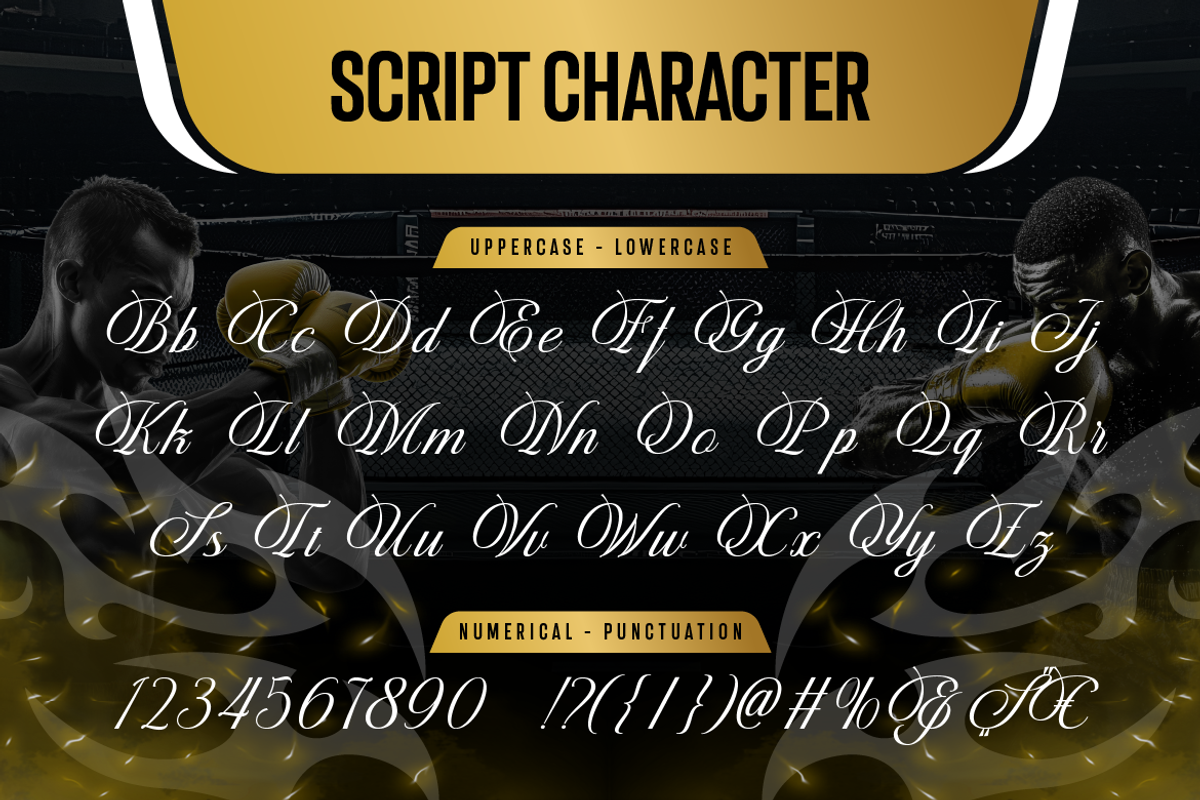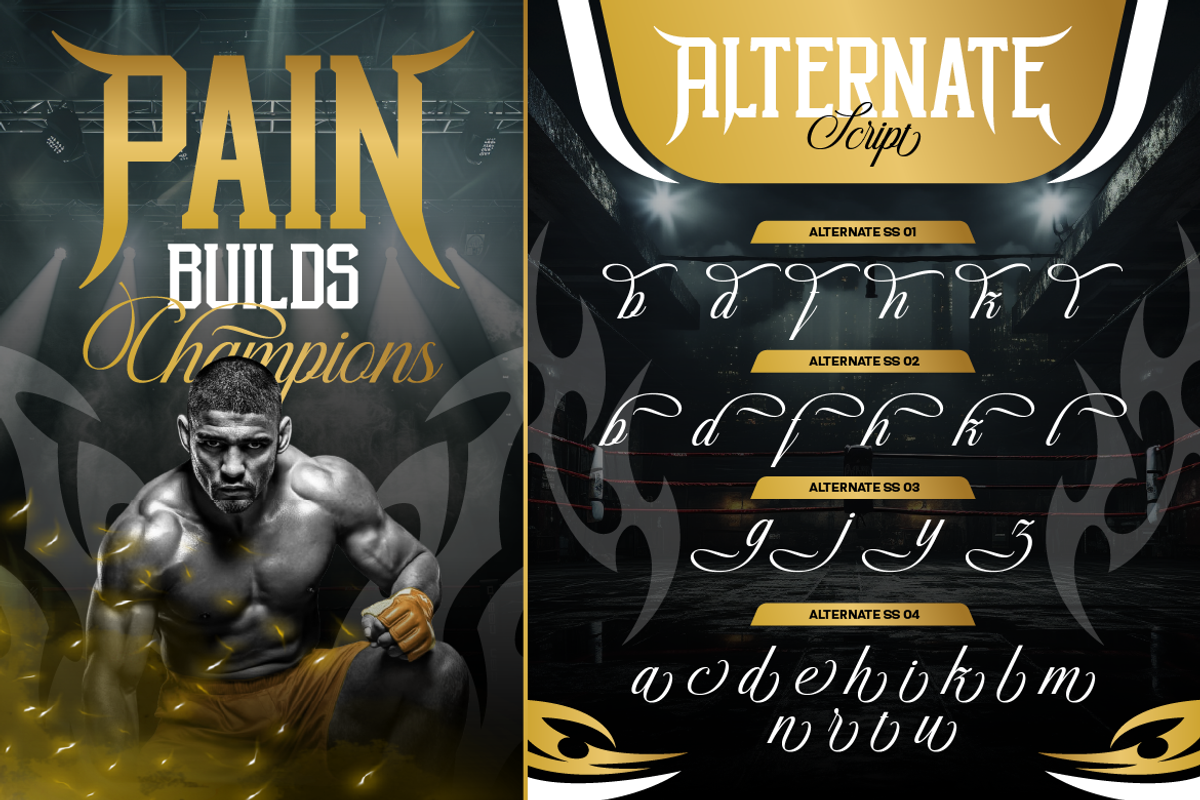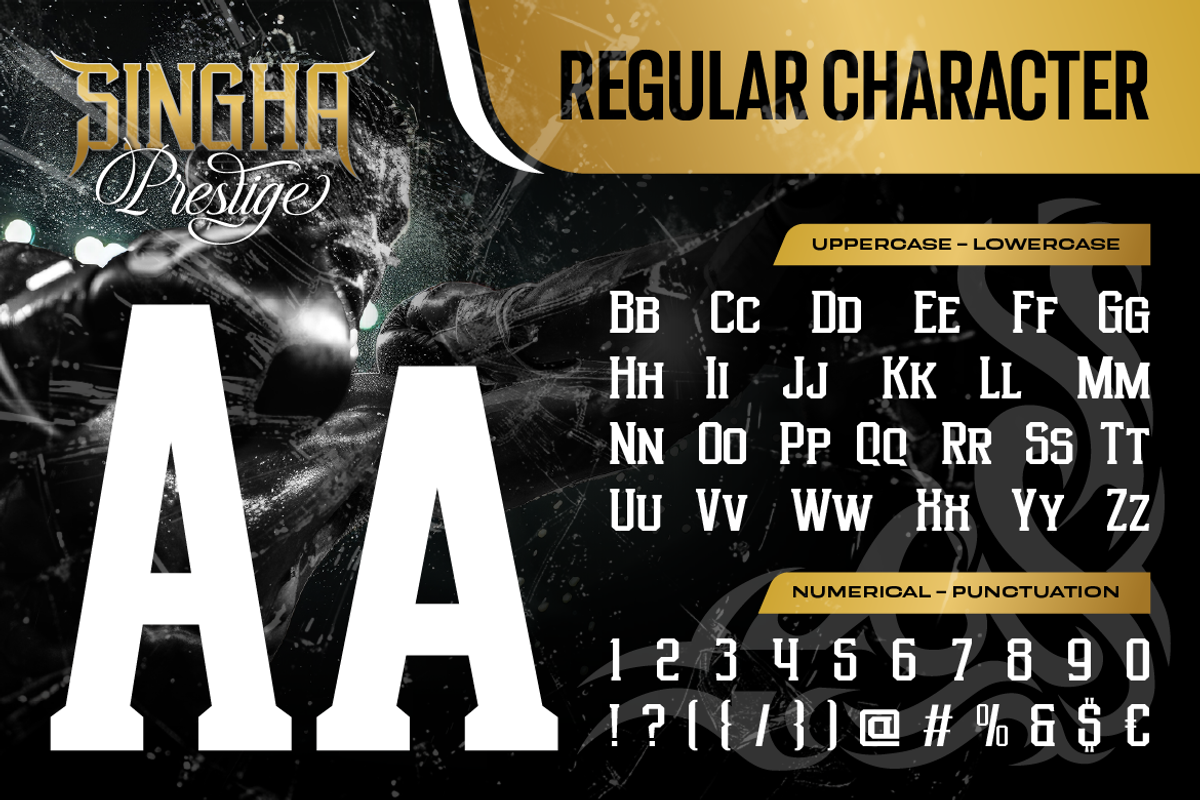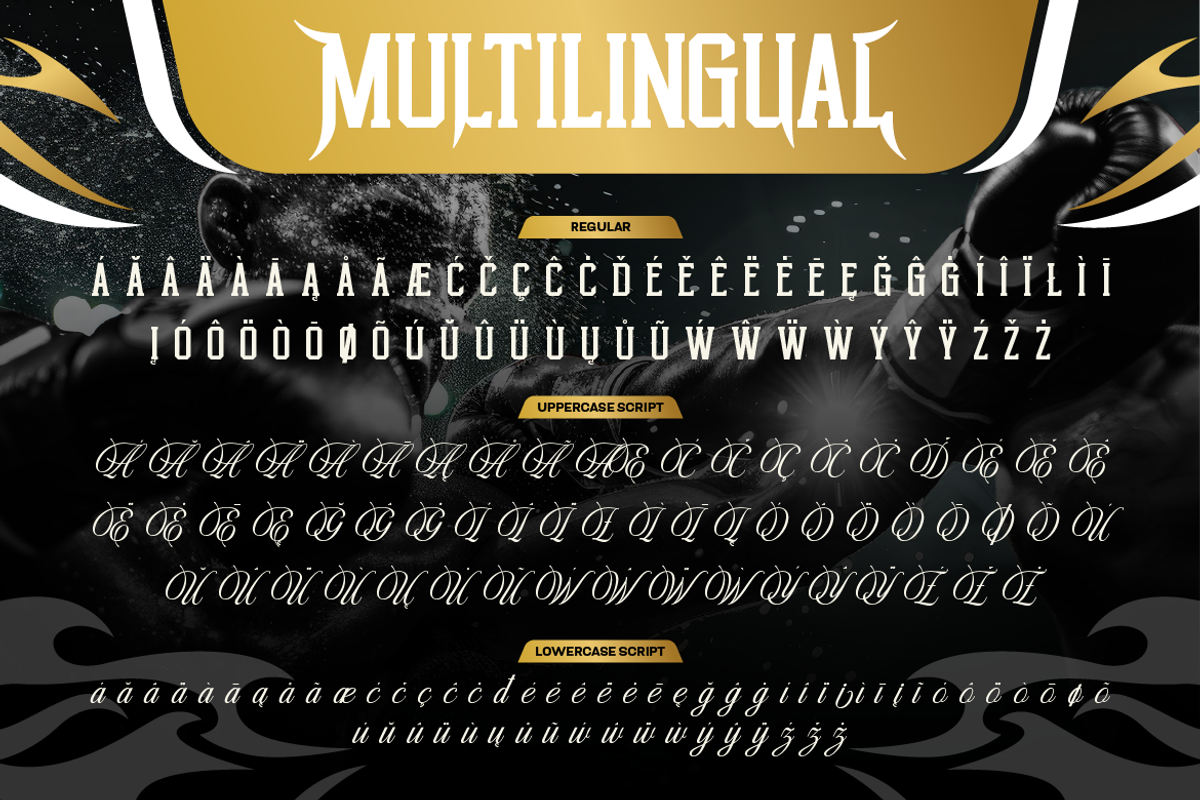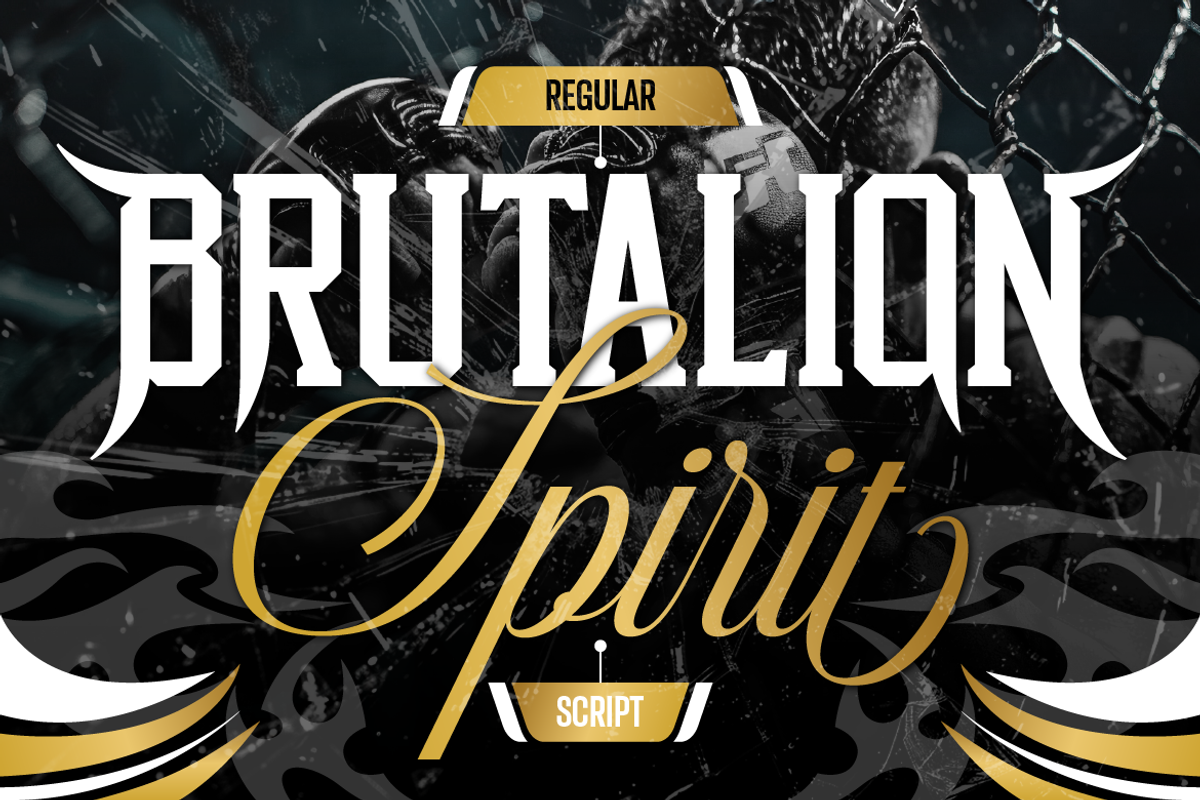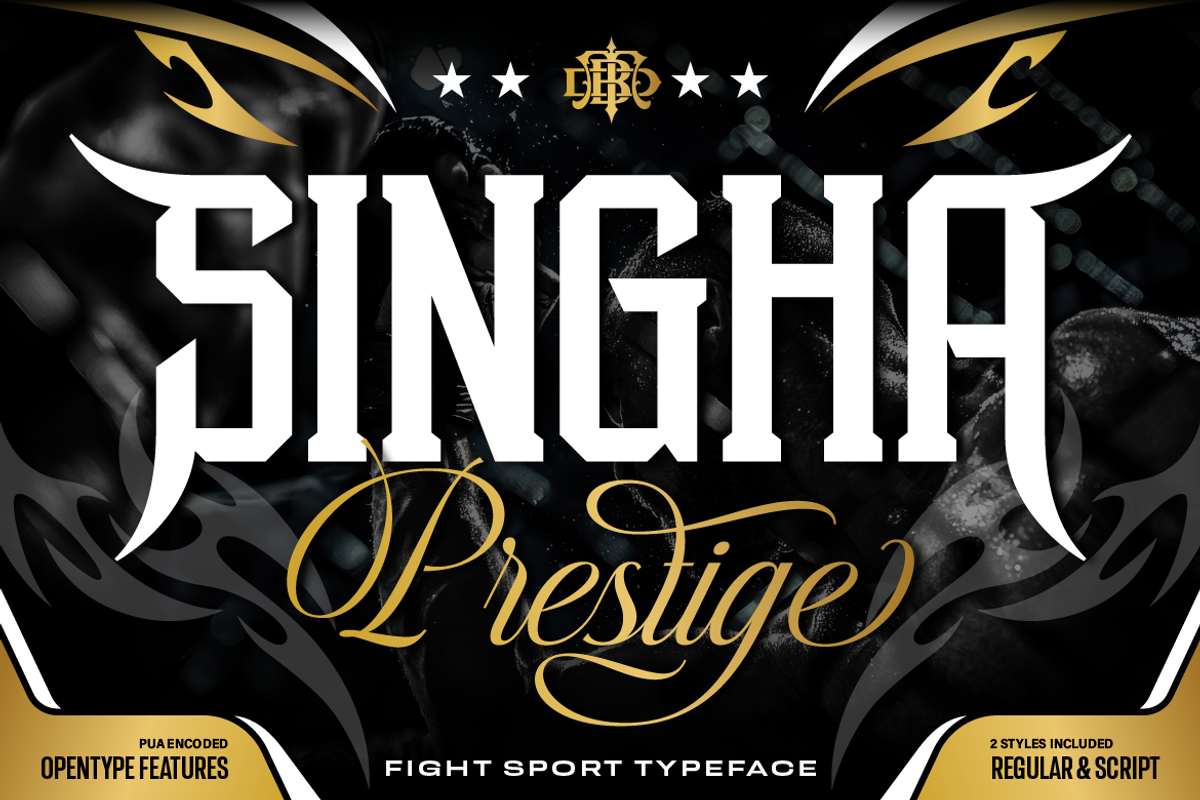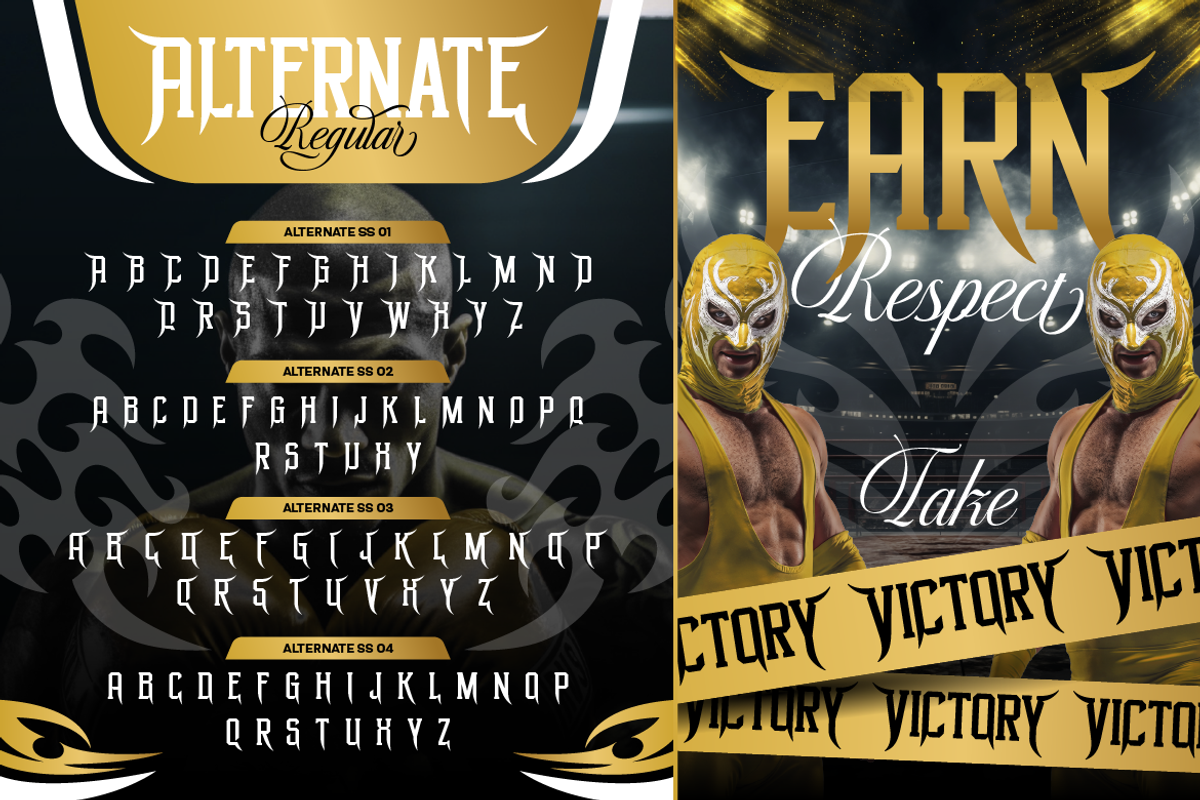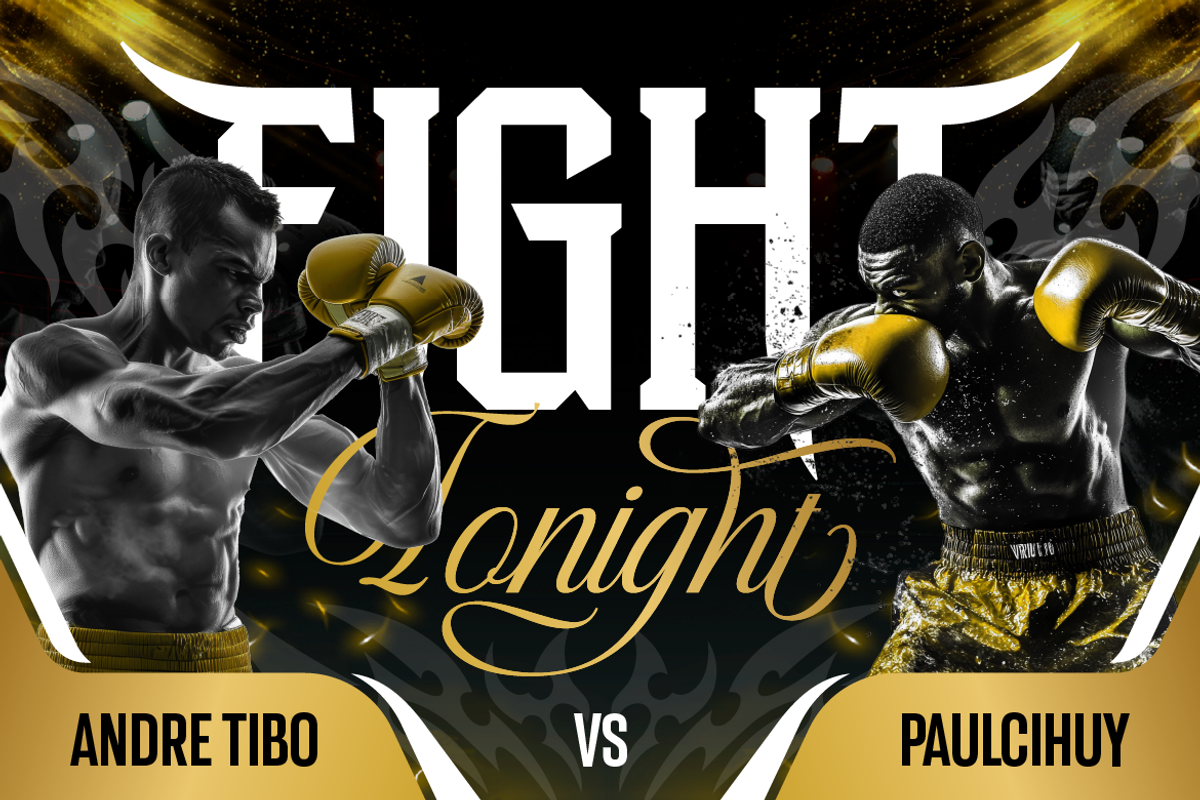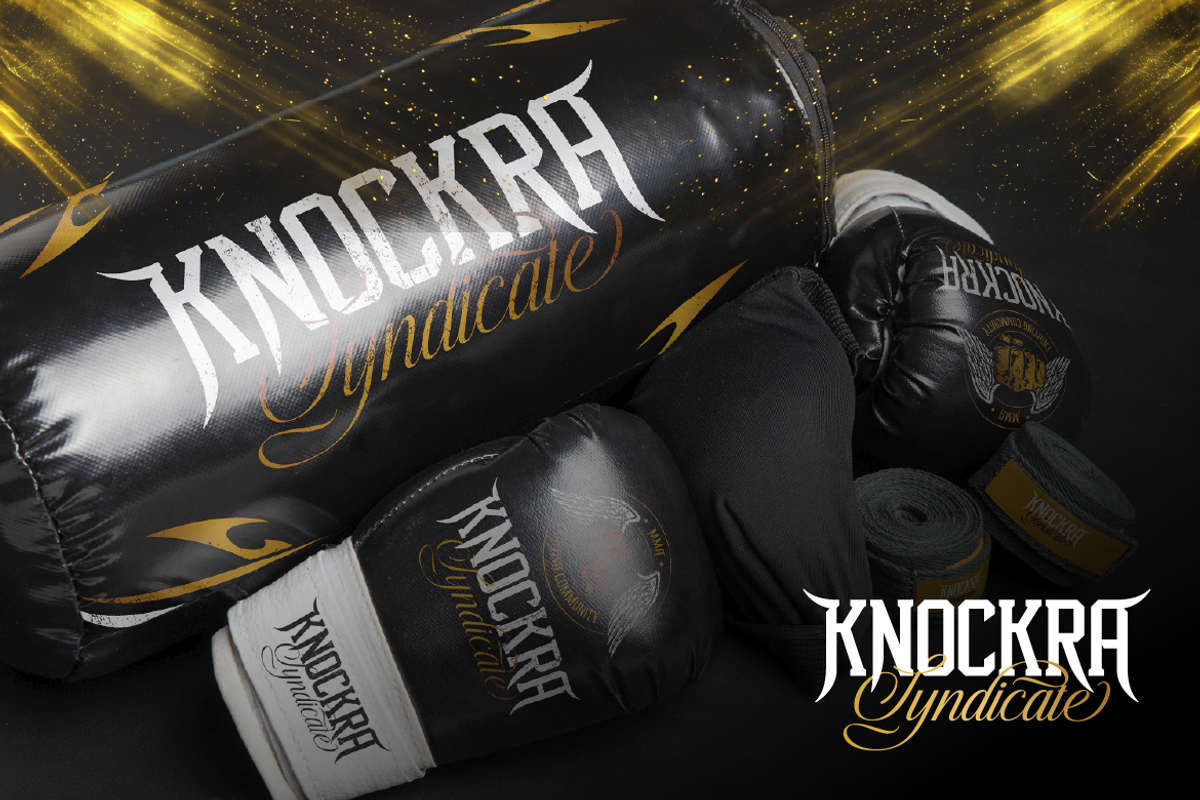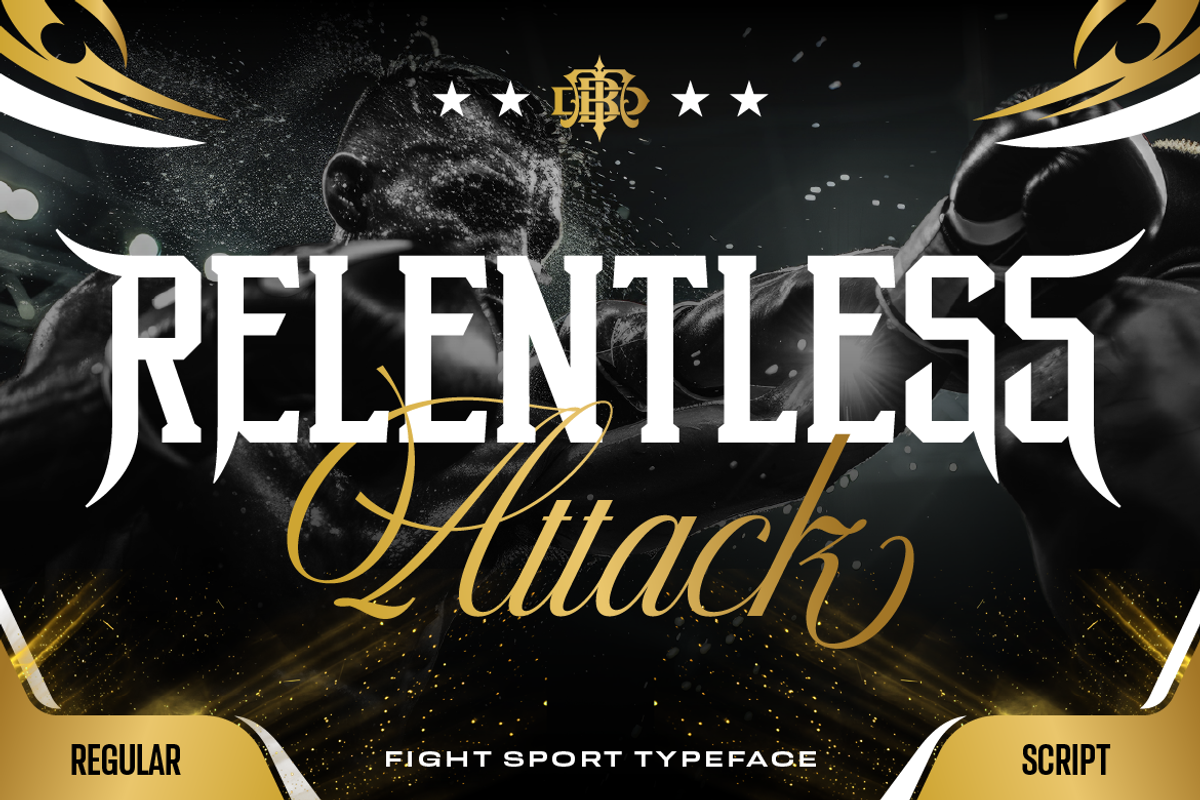
Singha Prestige
Under the bright arena lights, the crowd roars as two fighters step into the ring. Every move is sharp, every moment intense—and every detail matters. That’s the energy behind Singha Prestige, a powerful typeface inspired by the bold spirit of combat sports and the elegance of victory. Singha Prestige is a striking combination of strength and sophistication. It comes with two styles: a bold display serif that delivers impact, and a smooth script style that adds a touch of prestige and elegance. This contrast makes it perfect for designs that need both power and refinement in one visual identity. Designed with sharp edges, athletic proportions, and dynamic character forms, this font captures the essence of fight sports like boxing, MMA, wrestling, and more. Whether you're creating posters, branding, or merchandise, Singha Prestige will make your design stand out like a champion.
Fight sport posters & event promotions
Gym & fitness branding
Esports & gaming visuals
Apparel design (t-shirts, merch)
Logo design with bold character
Social media graphics & ads